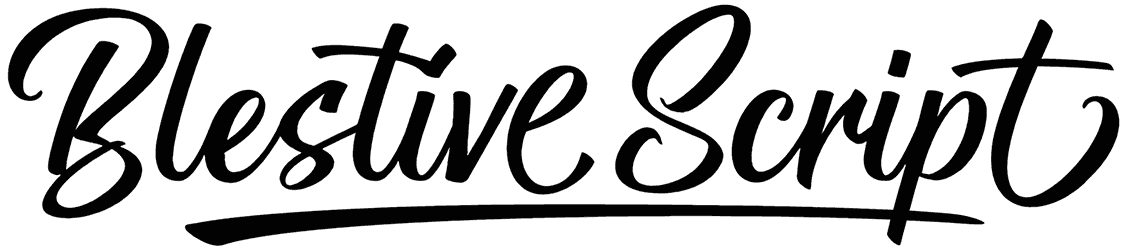
Blestive Script Font
For hand-lettering, branding, posters, and more, Blestive Script, a cursive calligraphy font with a feminine touch, is an excellent choice. Nonetheless, it lacks numerical characters. Since Blestive Script is formally styled, it may be used to create designs that grab attention.
http://mn.sg/blestive-scriptUse underscore _ anywhere in a word to make a swash underline.
Example: Won_derUse # after any word to make a swash letter.
Example: Cute#Use multiple underscores after any word to make swashes of different length.
Example: Weat___her